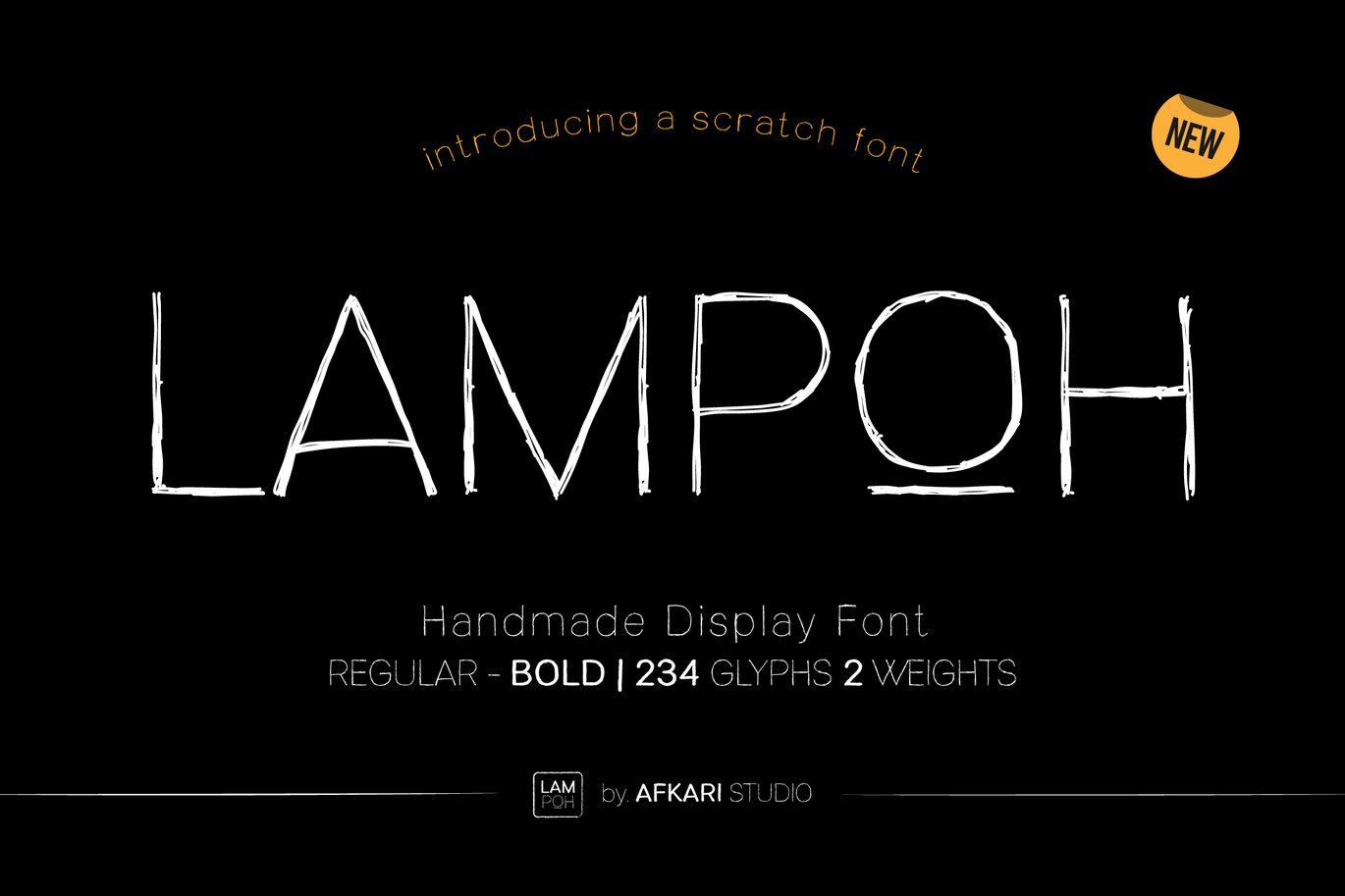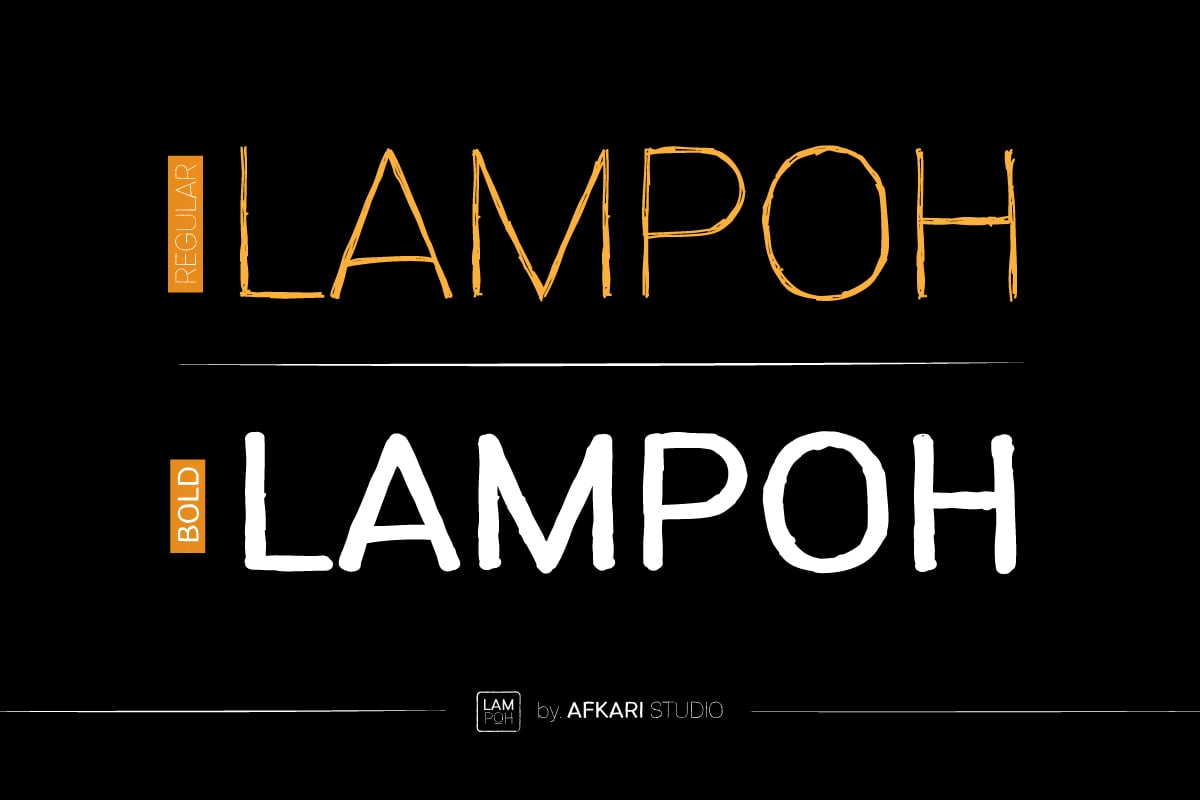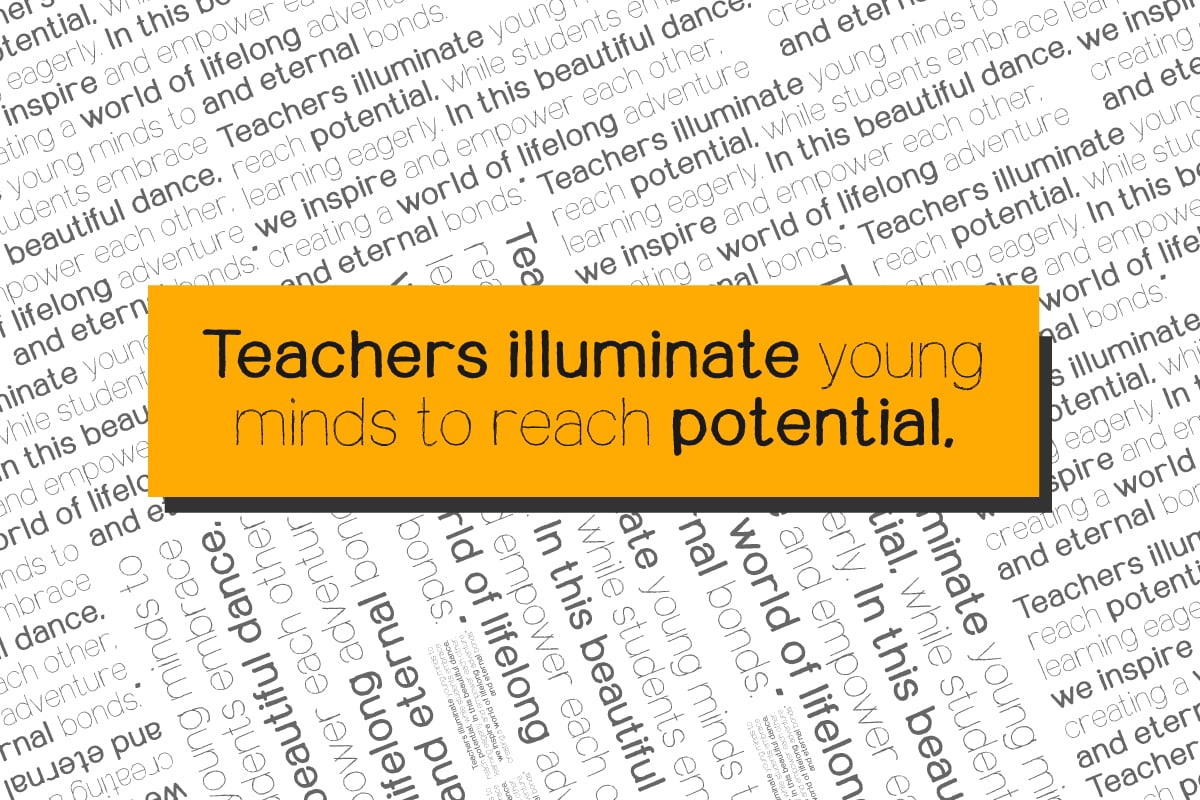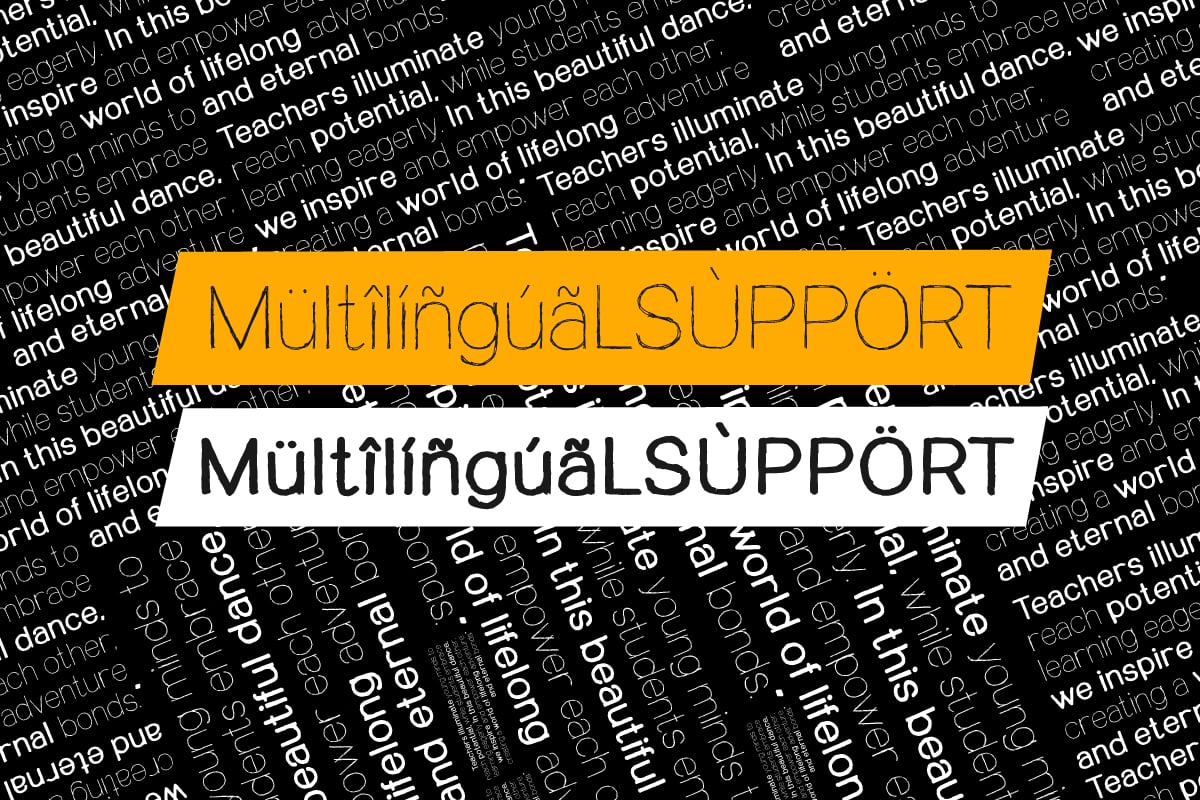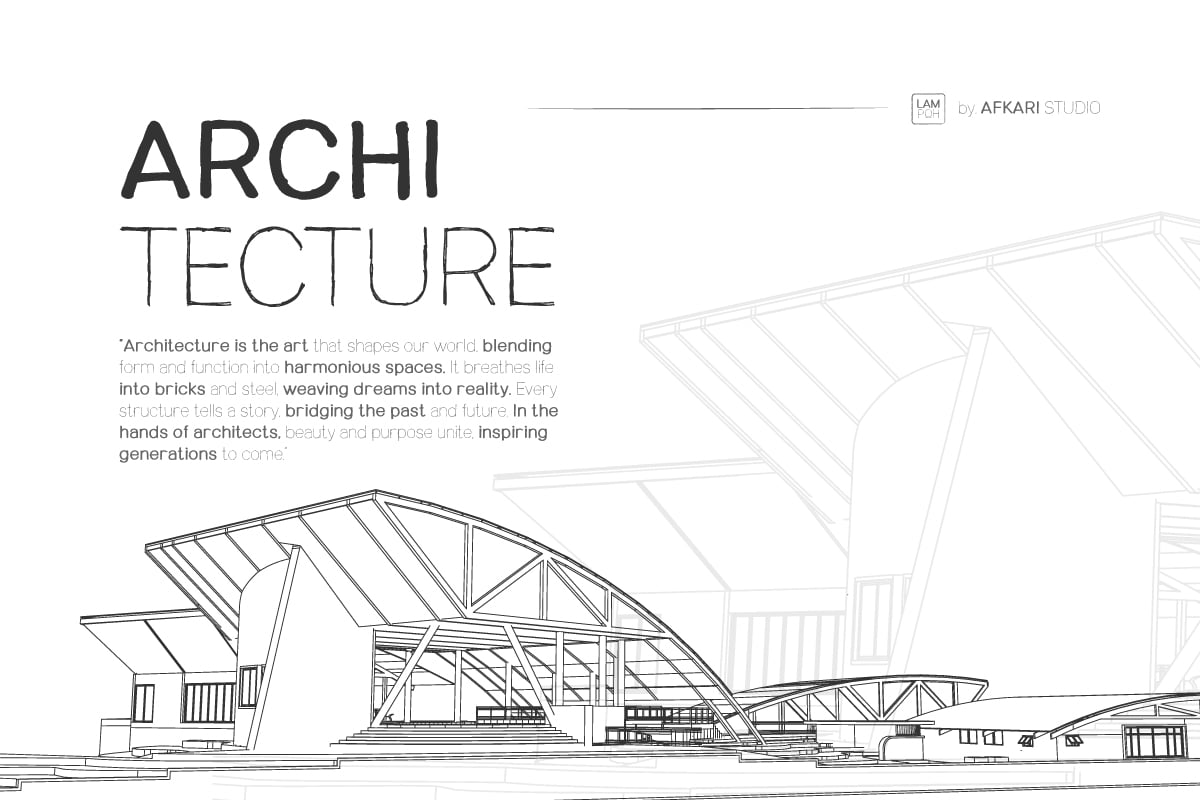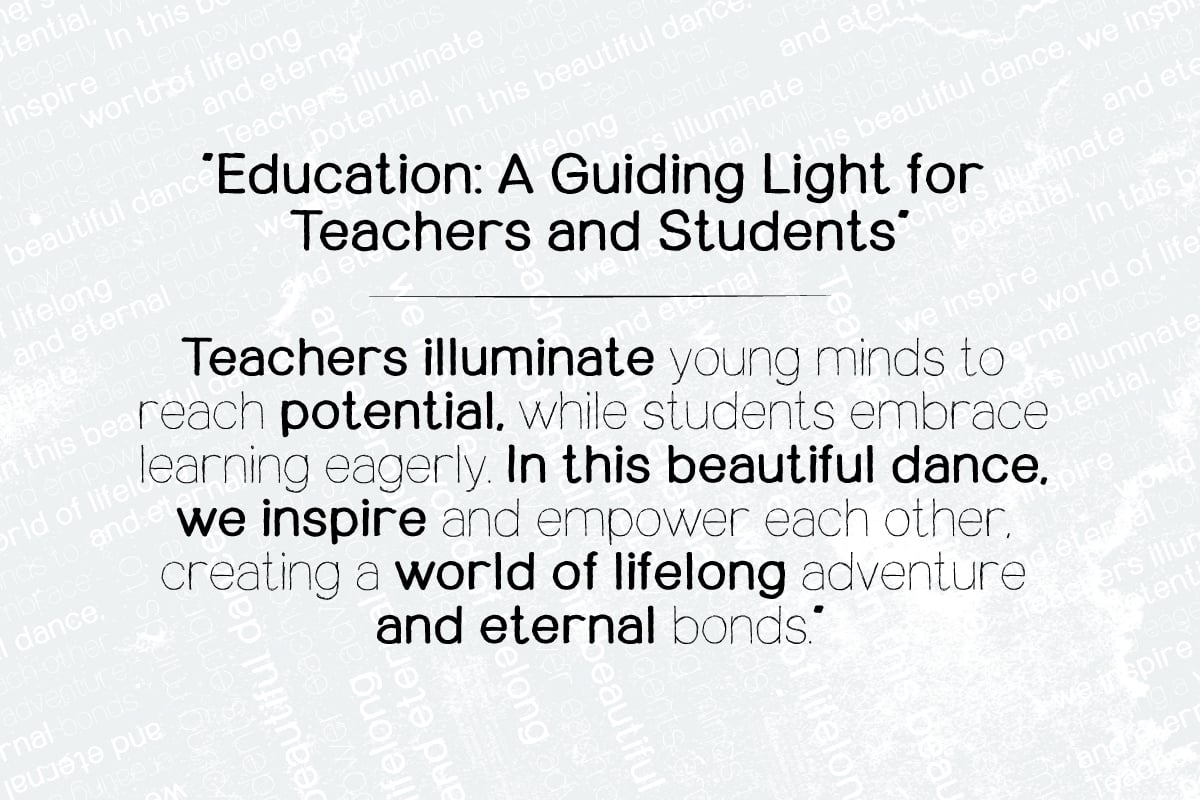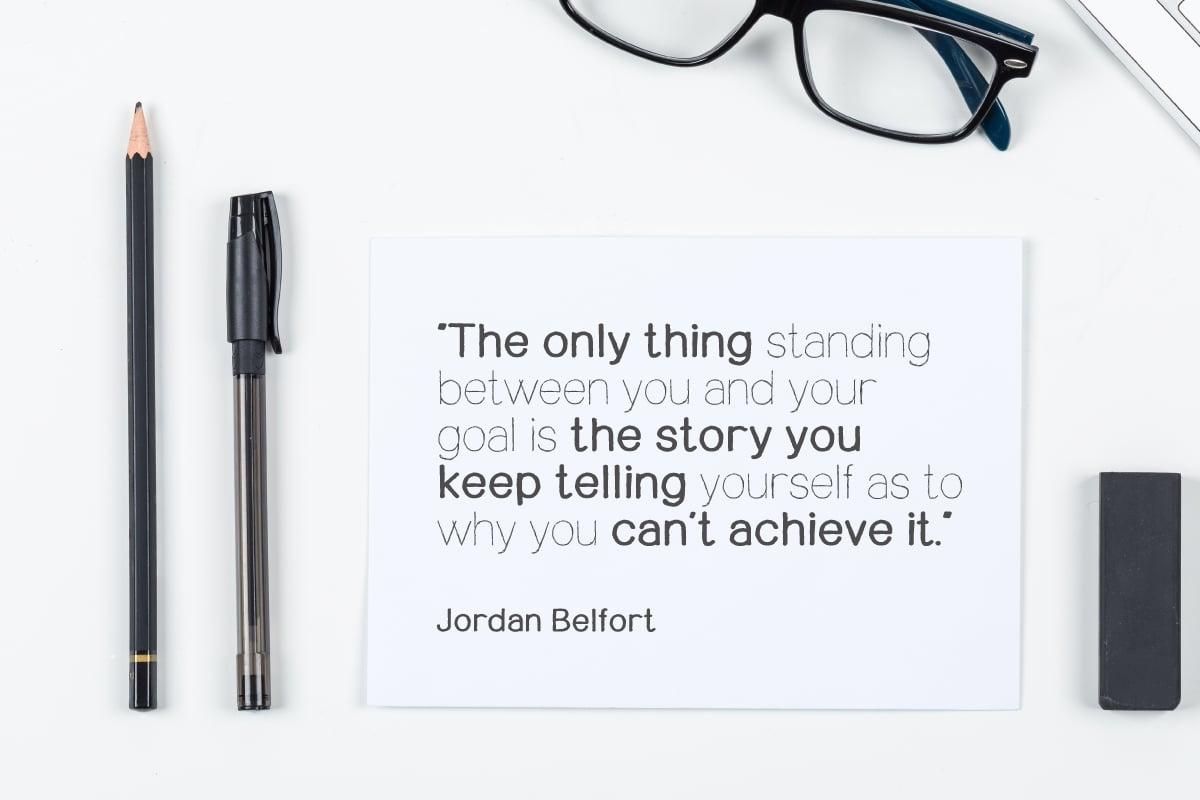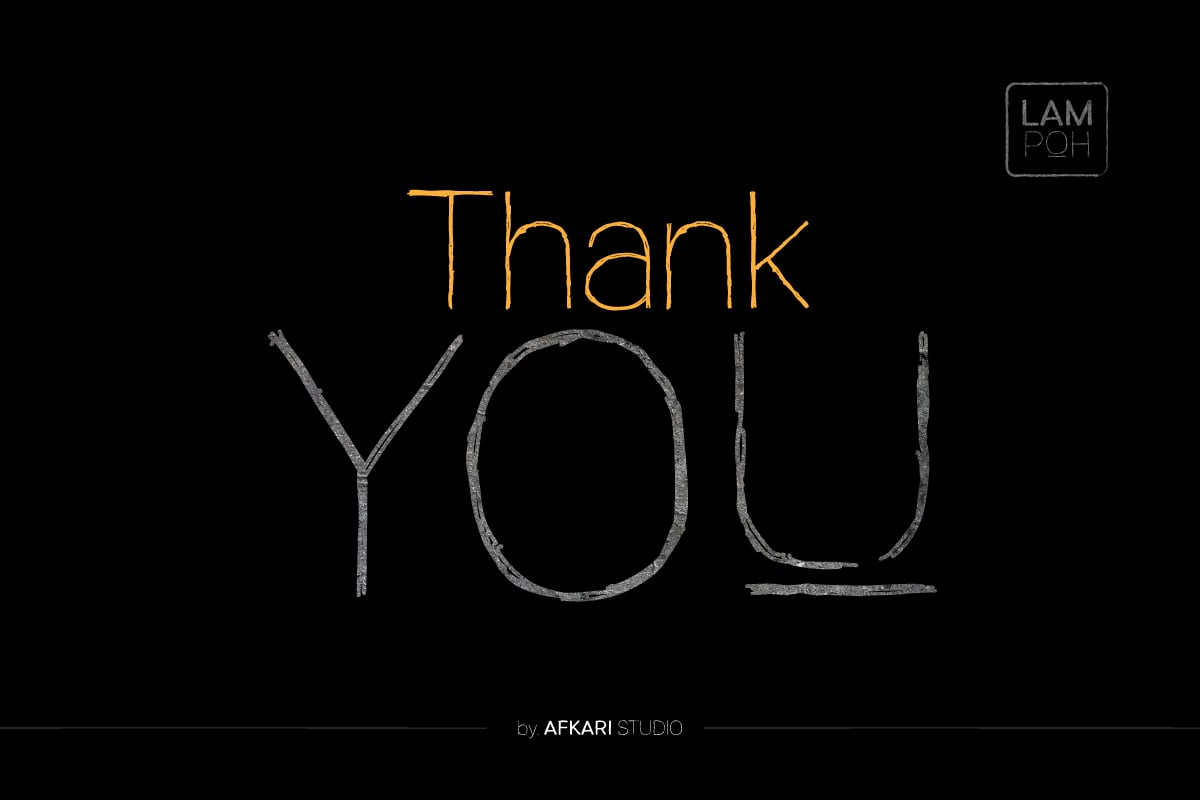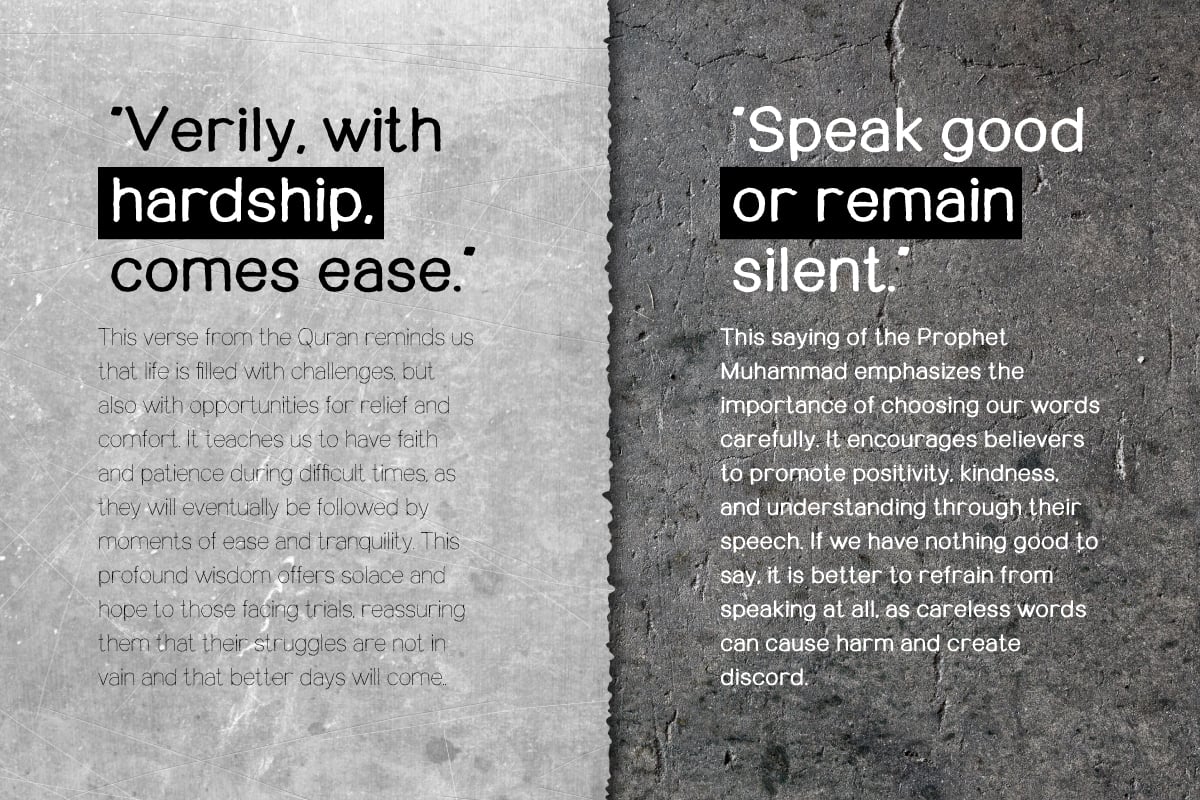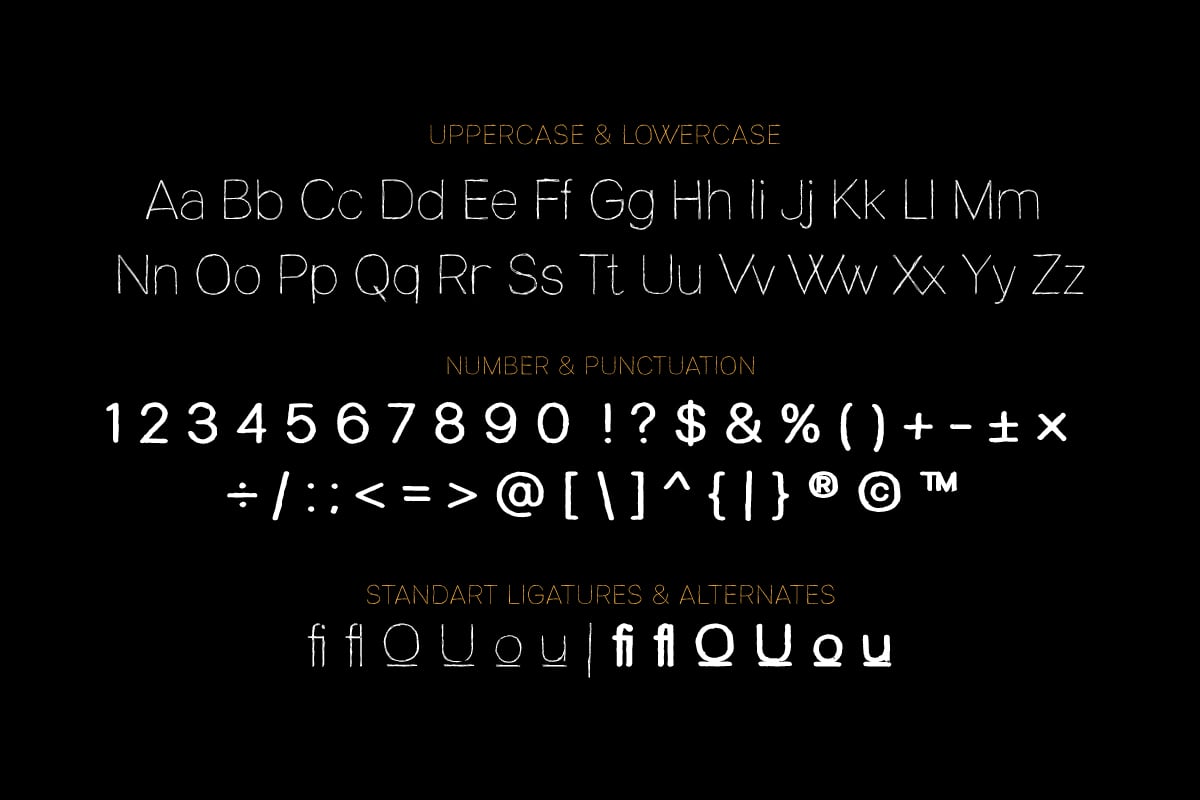
LAMPOH – The Handmade Scratch Display Font
LAMPOH is an artistic and captivating handmade display font, meticulously crafted by a talented type designer to bring uniqueness and authenticity to your creative projects. With its scratch-inspired design, LAMPOH stands out as a one-of-a-kind font that exudes a raw and artisanal charm, making it perfect for various artistic endeavors.
Features;
- 2 Weights; Regular and Bold
- Uppercase, Lowercase, Number, and Punctuation
- Mültîlíñgúãl Sùppört for; ä ö ü Ä Ö Ü ß ¿ ¡